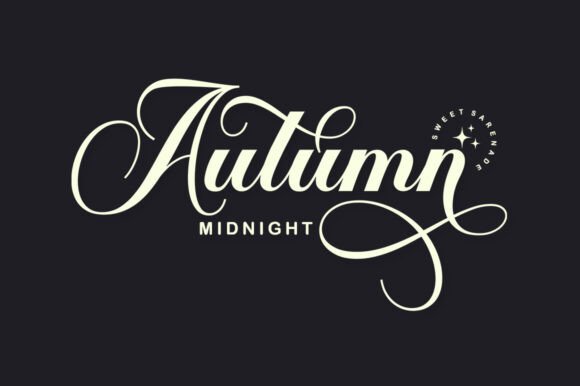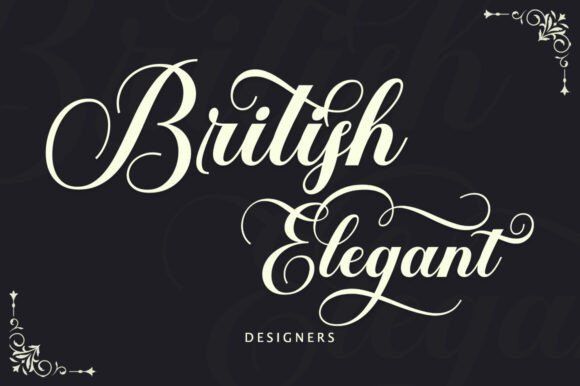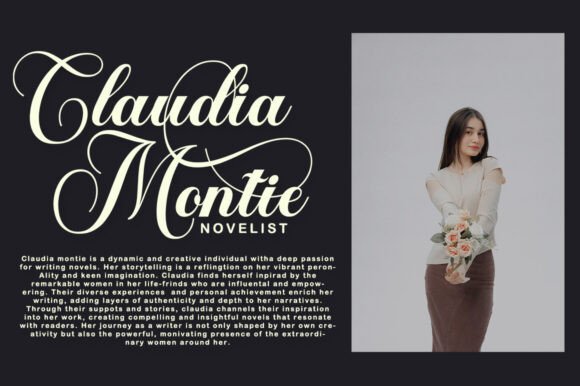
Introduction to Portsmouth Font
Have you ever stumbled upon a font that makes your design project shine? For me, that moment was when I discovered the Portsmouth Font. Its elegant copper script and modern twist had me hooked from the very start. I was working on a creative project, designing a wedding invitation, and I needed a font that would exude luxury and sophistication. That’s when I found Portsmouth Font – a high-quality design resource that added a touch of glamour to my design.
What I love about Portsmouth Font is its versatility. It’s perfect for formal events, such as weddings, anniversaries, and even corporate events. With its transparent background and clean lines, it’s a breeze to use, making it a valuable resource for designers. Whether you’re working on a free download project or a paid one, Portsmouth Font is a must-have in your design arsenal.
- Designed with a clean and minimalist aesthetic, making it perfect for use in logos, branding, and digital design projects.
Honest Review: Portsmouth Font
As a designer, I’ve come across numerous fonts for my creative projects. The Portsmouth Font is one such find that has caught my attention. I downloaded it for free, and my first impression was that it’s a high-quality design resource.
Here’s what I like about it: ✨ The font has a clean, modern design that’s perfect for titles and headings. It’s also available in a transparent background option, which makes it easy to integrate with any design project. The font’s versatility makes it suitable for various creative projects, from digital to print.
- Font style: Clean and modern
However, I did encounter a few limitations: ⚠️ The font’s availability is limited to a few languages, which might be a concern for international projects. Additionally, the font’s design may not be ideal for large blocks of text.
Overall, I’m impressed with the Portsmouth Font. Its high quality and versatility make it a great addition to any designer’s toolkit. While it has some limitations, it’s still a valuable design resource that’s worth exploring.
Tips for Getting the Most Out of Portsmouth Font
For a high-quality design, use the Portsmouth Font on a transparent background to create a clean and professional look. You can also experiment with different font sizes and styles to add visual interest to your design.
The Portsmouth Font is ideal for use in creative projects such as logos, brochures, and social media graphics. It’s also a great choice for designing invitations, menus, and other printed materials.